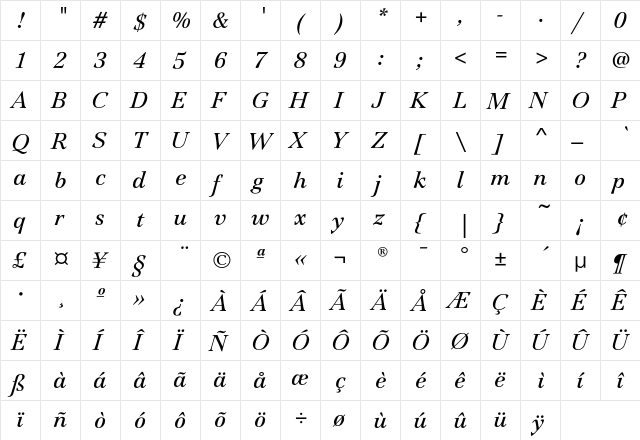
JamilleEF-BookItalic Regular
Design Context for JamilleEF-BookItalic Typeface
JamilleEF-BookItalic takes a measured approach to typography — its balanced proportions and neutral character make it a reliable workhorse for both digital and print work. The slanted form adds forward momentum and visual energy.
Pro Tip: Try JamilleEF-BookItalic for annotation and caption copy alongside an upright companion — the contrast in angle creates a dynamic but ordered typographic system.